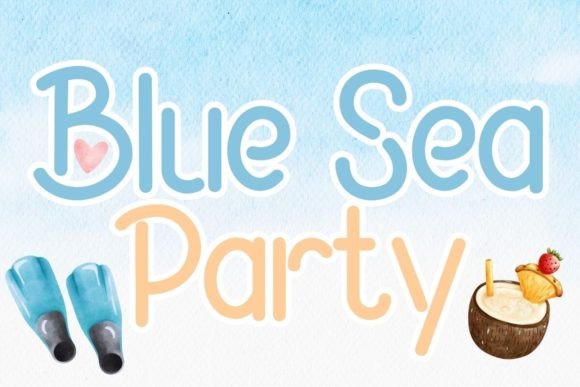
Dive into the depths of creativity and unlock the secrets of the sea with the mesmerizing Blue Sea Party Font, a script font that intertwines the sophistication of display fonts with the intimate charm of handwritten notes. Its graceful curves, inspired by the ebb and flow of ocean waves, gracefully dance across your designs, leaving a trail of elegance and uniqueness in their wake.
As you immerse yourself in the Blue Sea Party Font, you'll discover a world of captivating possibilities, where your design projects transform into captivating masterpieces. Its free-flowing strokes, reminiscent of a gentle sea breeze, bring a sense of celebration and creativity to your invitations, branding, and any project you grace with its presence.
With Blue Sea Party Font, you'll embark on a journey of visual storytelling, crafting designs that speak to the heart and resonate with your audience. Its versatility knows no bounds, allowing you to weave tales of joy, love, and adventure across a multitude of creative mediums.
Embrace the spirit of the sea and let the Blue Sea Party Font guide you towards uncharted territories of design excellence. Dive into its depths, explore its endless possibilities, and create a symphony of visual wonders that will leave a lasting impression on all who behold them.